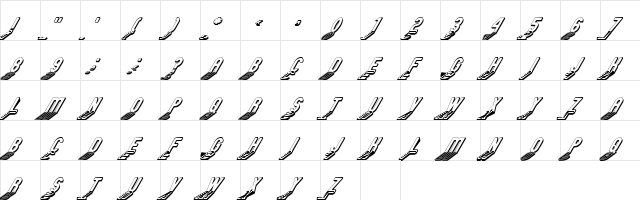
GM Exp Shadow Gravestone2 Regular
Design Context for GM Exp Shadow Gravestone2 Typeface
GM Exp Shadow Gravestone2 brings ornamental detail and strong personality to headlines and identities, where visual impact matters more than quiet functionality.
Font Pairing: Pair with a clean neutral sans-serif for body copy to let GM Exp Shadow Gravestone2's character lead without overwhelming the composition.
Pro Tip: Treat GM Exp Shadow Gravestone2 as the centrepiece of your typographic hierarchy. One strong heading set in a decorative face can carry an entire layout.